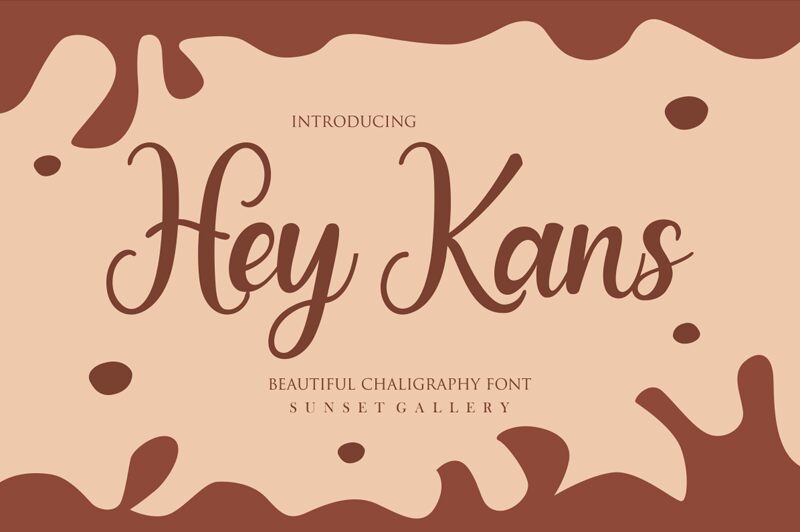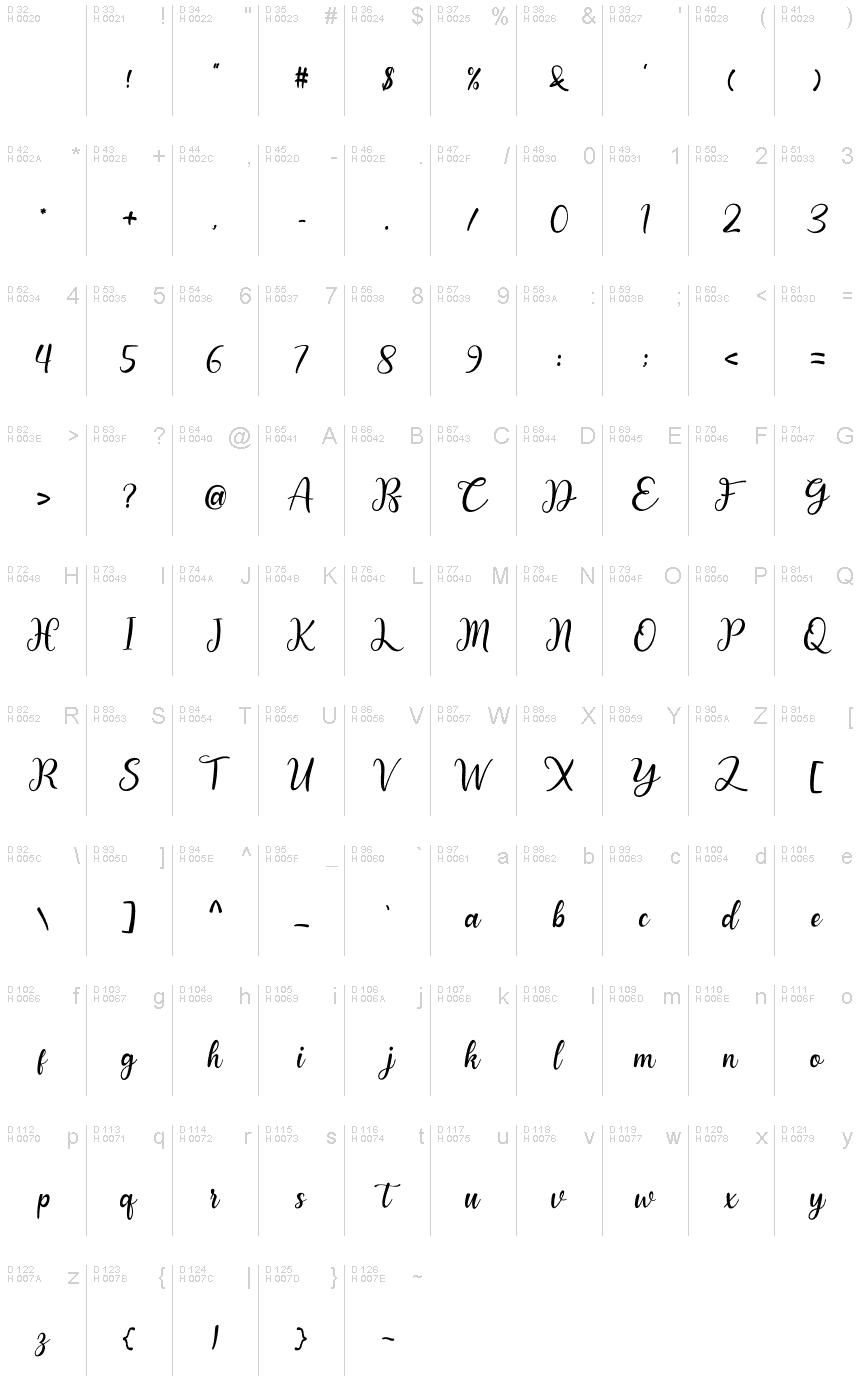
Hey Kans
Hey Kans font is a beautiful calligraphy typeface designed by Rizki Typeline Studio.
This charming font will turn any creative idea into a standout.
Perfect for all logos, branding, social media, etc.